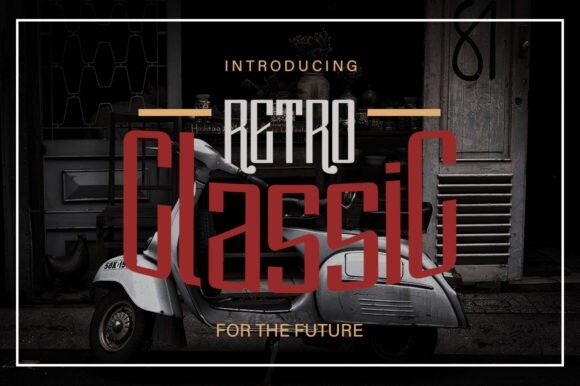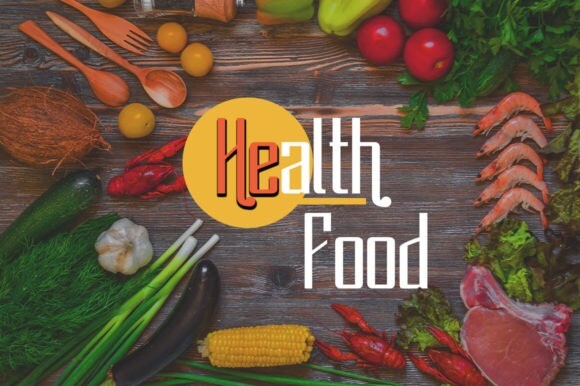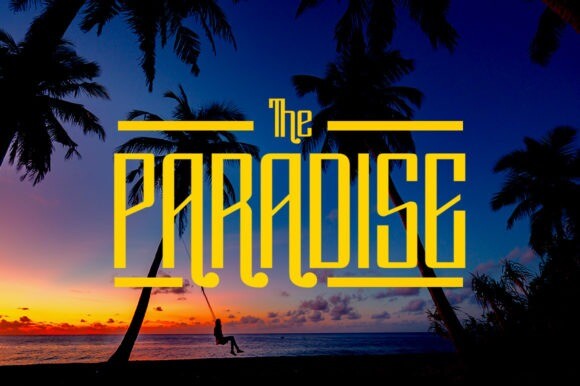
Classic Font
Classic is a retro styled and cool looking display font.
It is suitable for logotype, headline font, in corporate identity, brand identity, apparel industry, poster, music, movie, game, magazine, book, comic, cartoon, YouTube, Instagram, website, or any of your creative design projects.